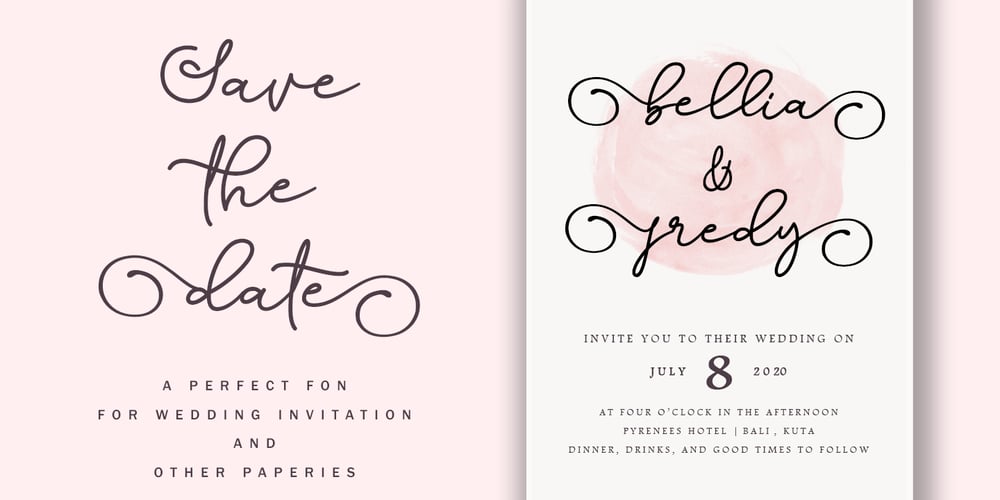
Dinila Script Font Family was designed by Alde Saputro and published by Aldedesign. Dinila Script contains 2 styles and family package options. Dinila is a fashionable and quirky handwritten font with a unique style. It will add an authentic and personal touch to any design project!